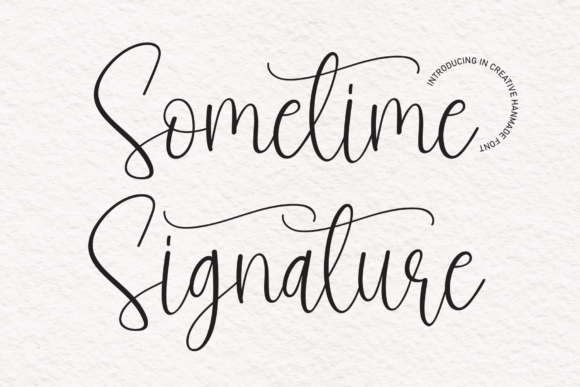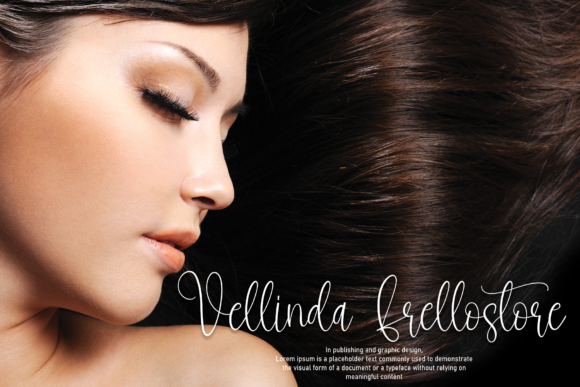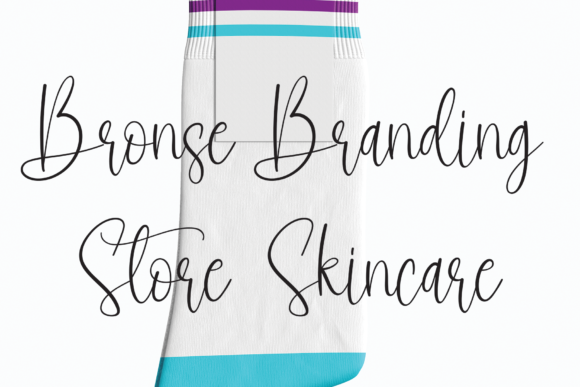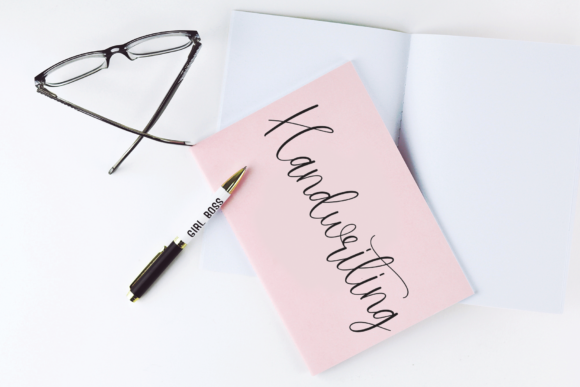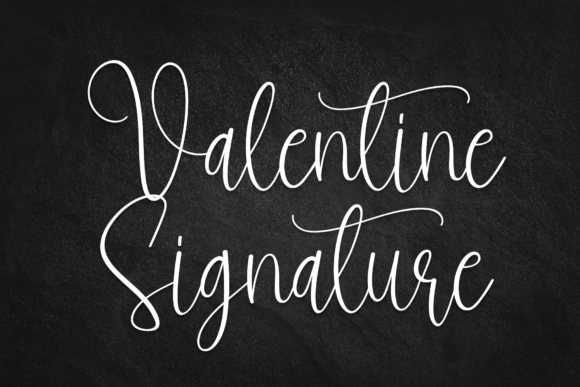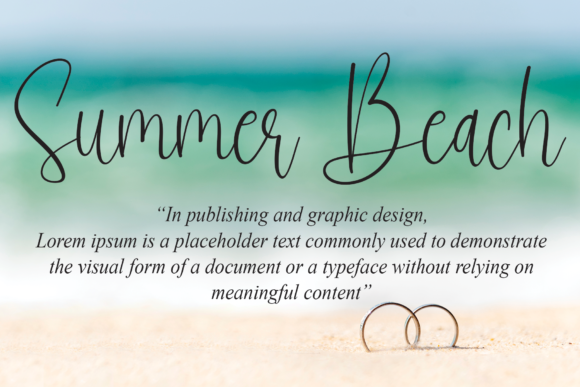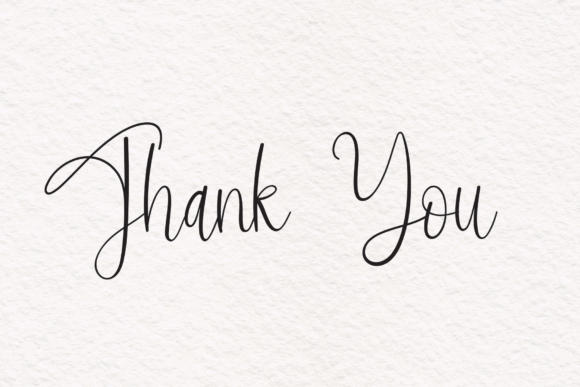
Sometime Signature Font
Sometime Signature is a sweet and cursive handwritten font. This gentle font will look gorgeous on a variety of design ideas. It will add a joyful and romantic touch to each of your projects!